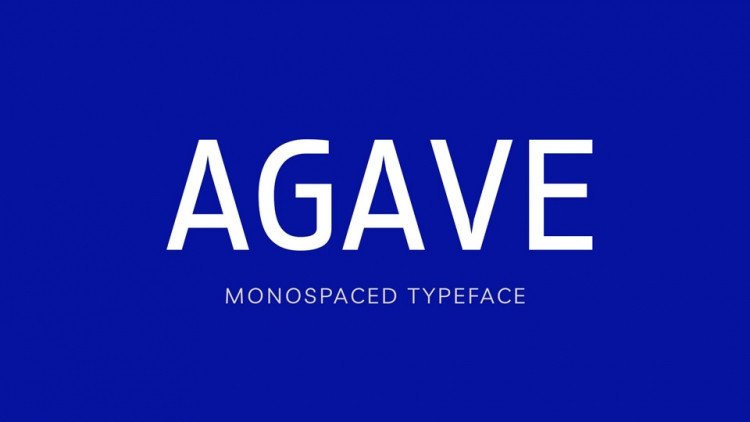
Agave Free Typeface
Agave is a small, monospace, outline font that would be geometrically regular and simple. The endeavor was motivated by a deep adoration of old-school console bitmap fonts, of Consolas, of Pragmata Pro, as well as a novice curiosity for typographical design. Design concept of Agave font based to two mathematical patterns: the power of two and the golden ratio. It has a complete glyph set, including Cyrillic and Greek support.